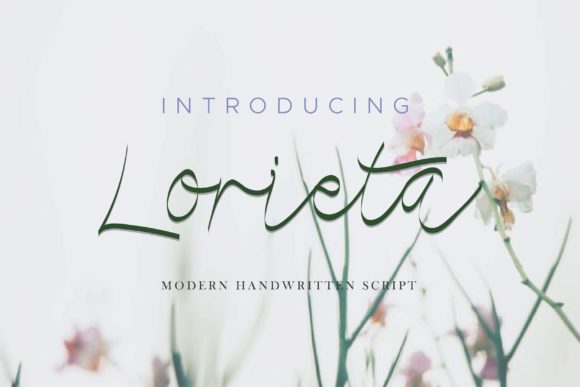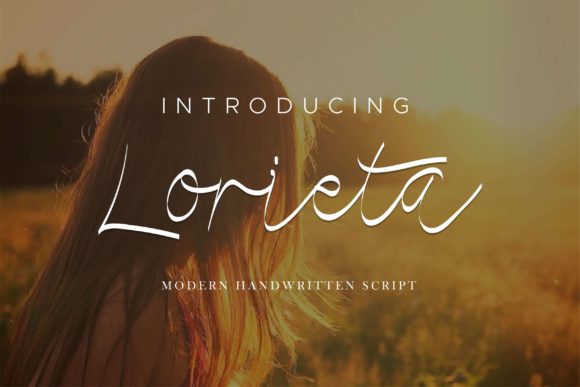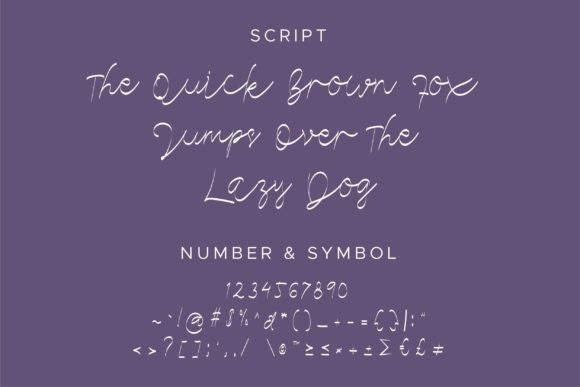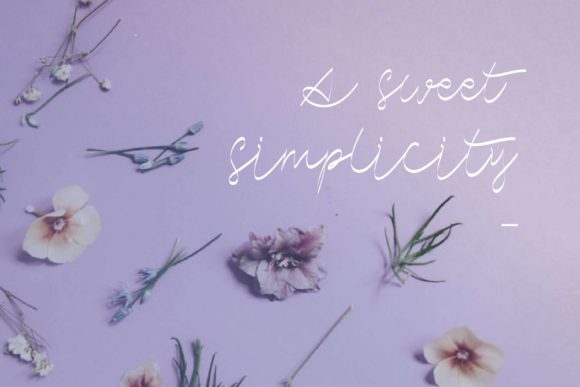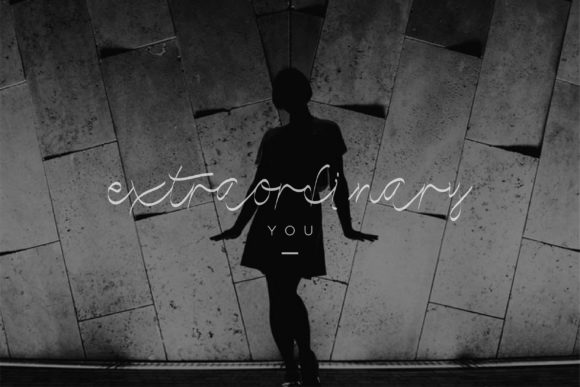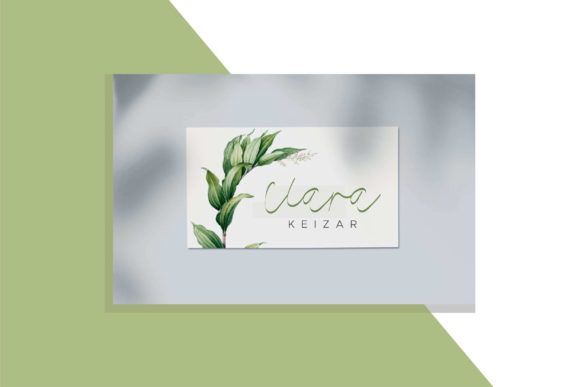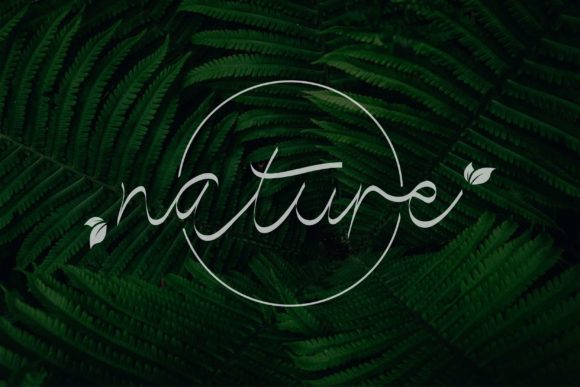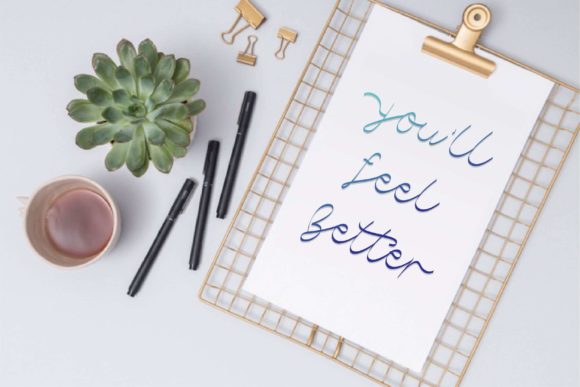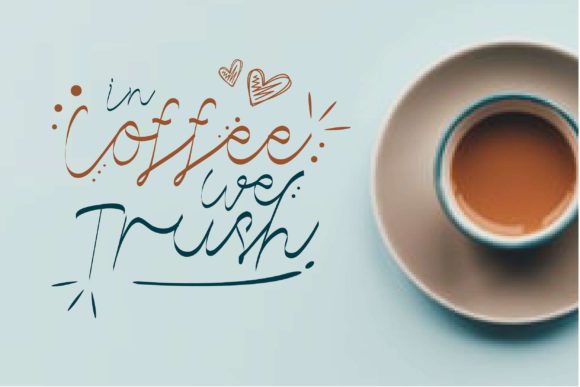
HomeScript FontsLorieta Font Script Fonts Lorieta Font FacebookXPinterestWhatsApp Lorieta Font Poster 2 Lorieta Font Poster 3 Lorieta Font Poster 4 Lorieta Font Poster 5 Lorieta Font Poster 6 Lorieta Font Poster 7 Lorieta Font Poster 8 Lorieta Font Poster 9 About Lorieta Font Lorieta is a simply gorgeous script font that feels fresh and modern. Get inspired by its timeless charm. DOWNLOAD ON CREATIVE FABRICAThis font is sold and delivered by Creative Fabrica. Font Canyon may earn a commission if you buy through this link. People also explored Chris Sharon Font Dashing Unicorn Font Speed Racing Font Skull Blood Font Sportnex Athletic Font The Crafter Font PowerStation Freedom Font Filmotype Quartz 340 0 TagsLorieta Font Previous articleJellita FontNext articleBologna Font LEAVE A REPLY Cancel reply Comment: Please enter your comment! Name:* Please enter your name here Email:* You have entered an incorrect email address! Please enter your email address here Website: Save my name, email, and website in this browser for the next time I comment. Personal Use Free Fake Receipt Personal Use Free Read more about this font Nuku Nuku Personal Use Free Read more about this font Bamboomoe Personal Use Free Read more about this font Anjhay Personal Use Free Read more about this font BLOG Free Fonts Risk: Why Free Fonts Can Be Dangerous for Designers Free Fonts Risk: Why Free Fonts Can Be Dangerous for Designers Using free fonts is a common practice in web and graphic design. However, the... Exploring Font Trends Where to Buy American Fonts Online in 2024 How to Cut Any Font on Cricut: Convert a Font to SVG (Free)